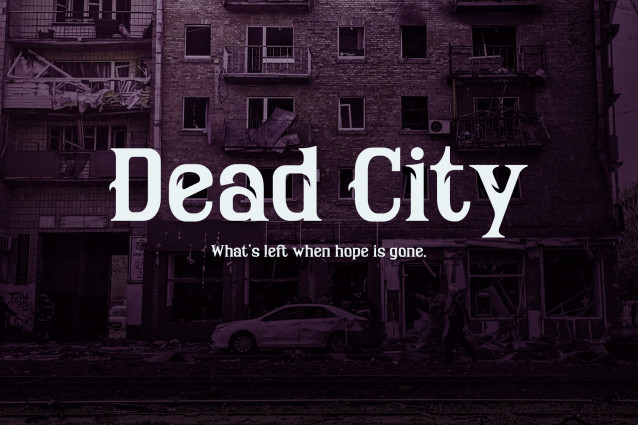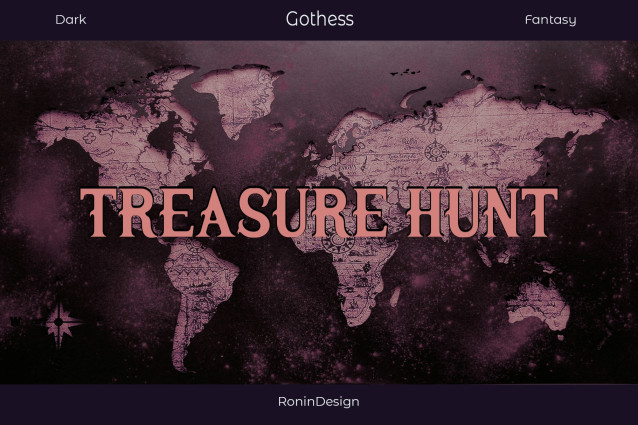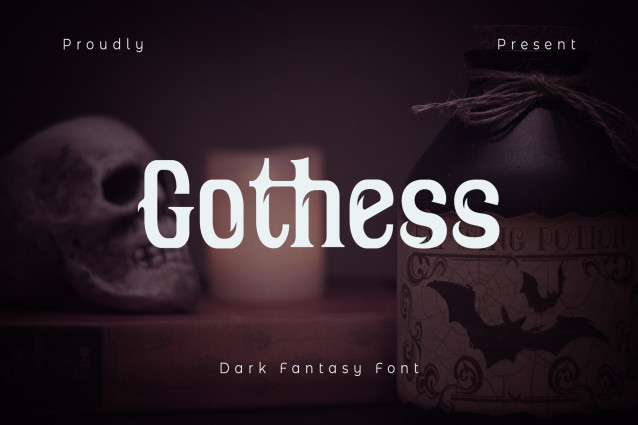
Gothess Font
Gothess Font is a dark fantasy font that blends dark gothic charm with refined fantasy elegance. Inspired by experimental design, this font captures attention with its sharp angles, mystical forms, and stylized curves.
With its unique letterforms and dramatic personality, Gothess is ideal for projects that need a strong visual impact, fantasy book covers, fashion branding, perfume packaging, metal band merch, mystical logos, or dramatic social media visuals. The lowercase characters carry a more dynamic, slightly condensed form, offering subtle rhythm and variety when paired with the uppercase.